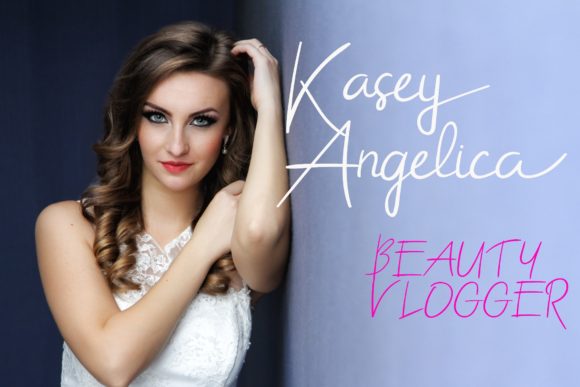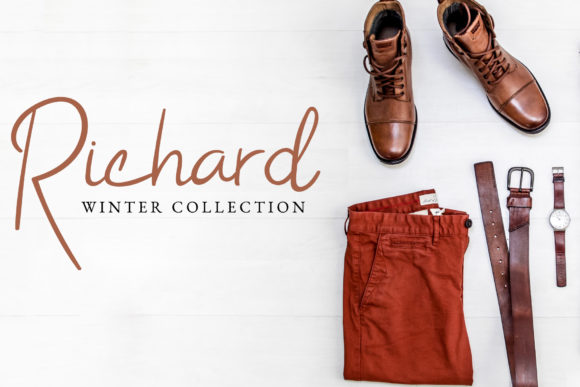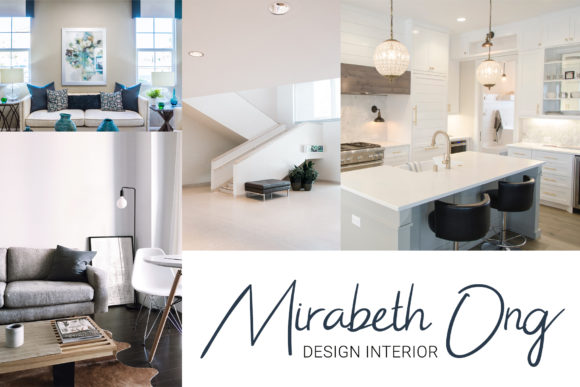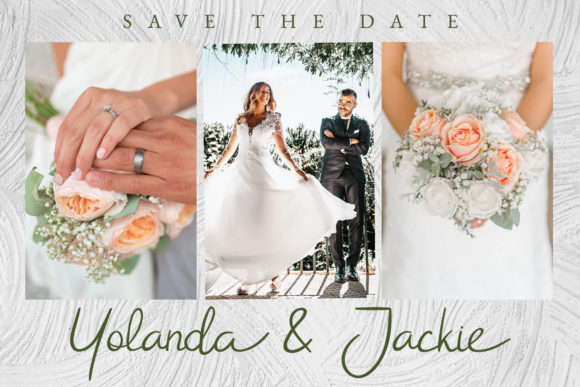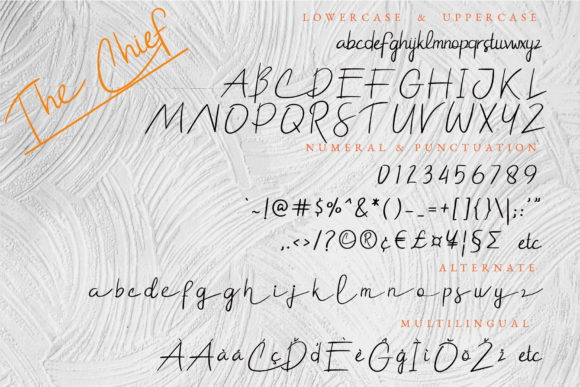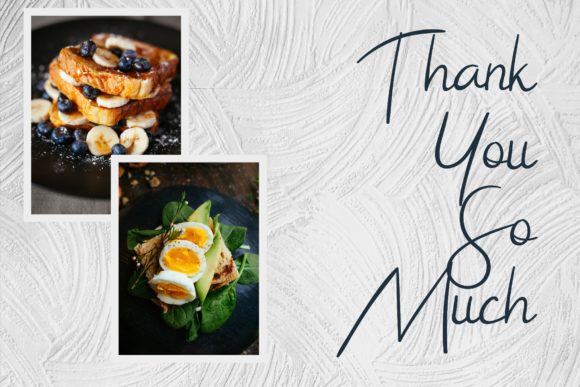
The Chief Font
About The Chief Font
The Chief fuses modern elegance with timeless simplicity, making it an extremely versatile, yet distinct addition to any font library.